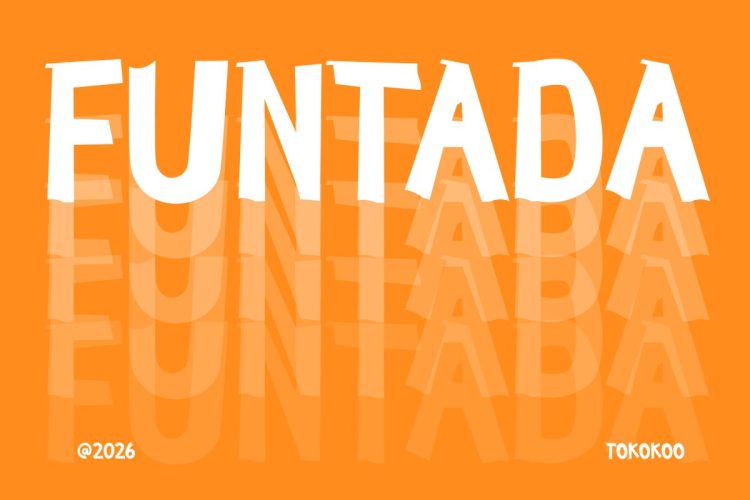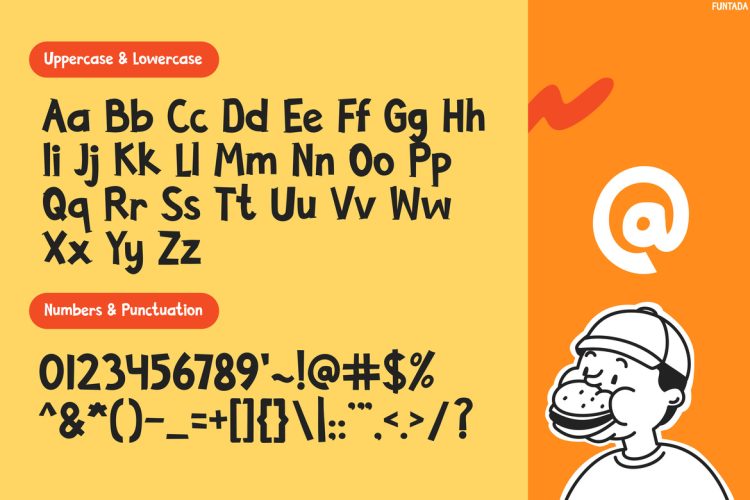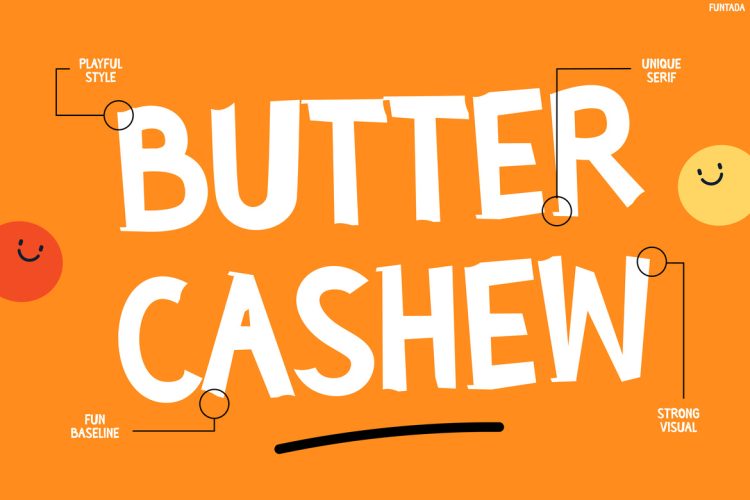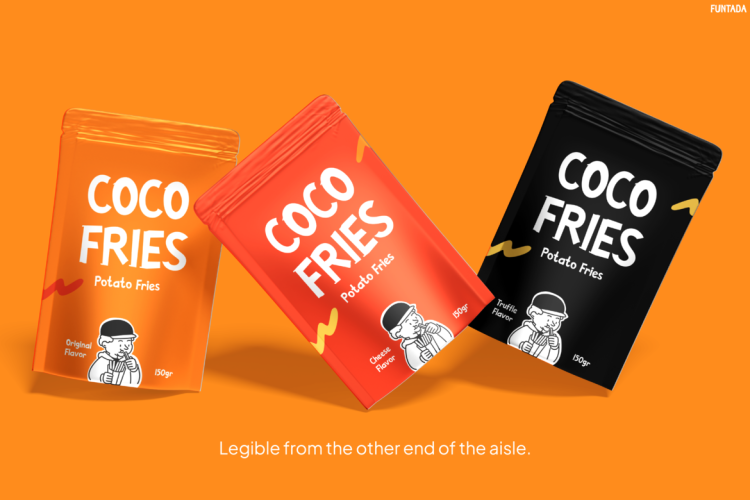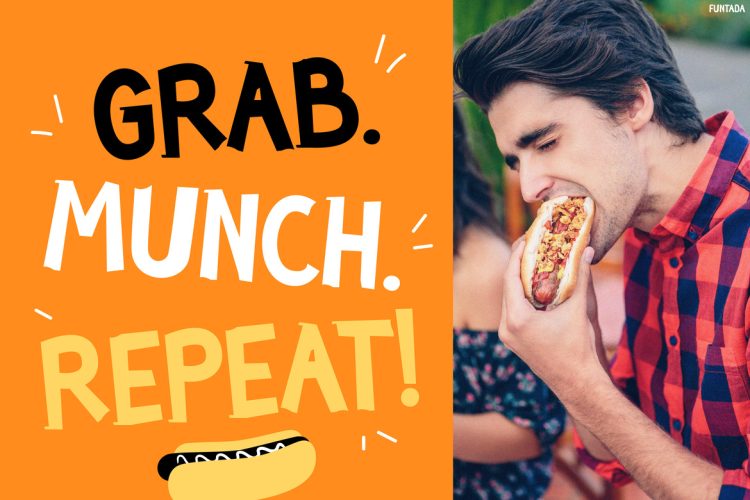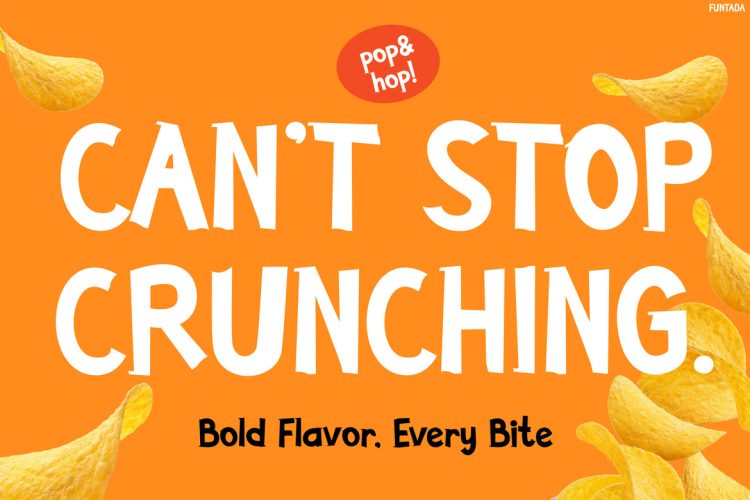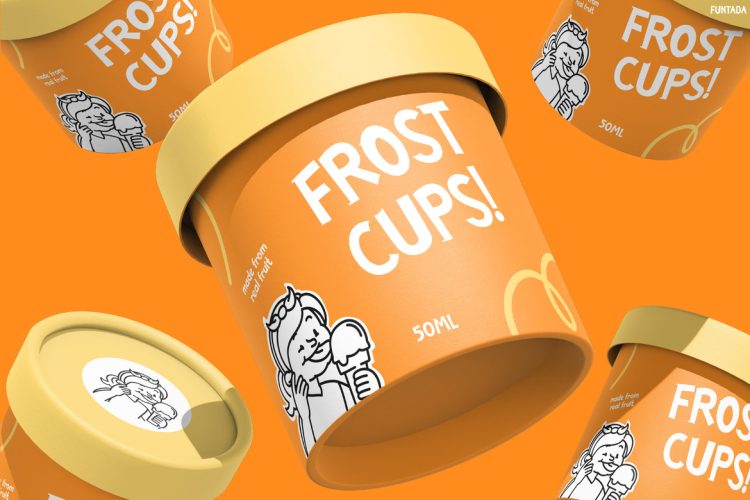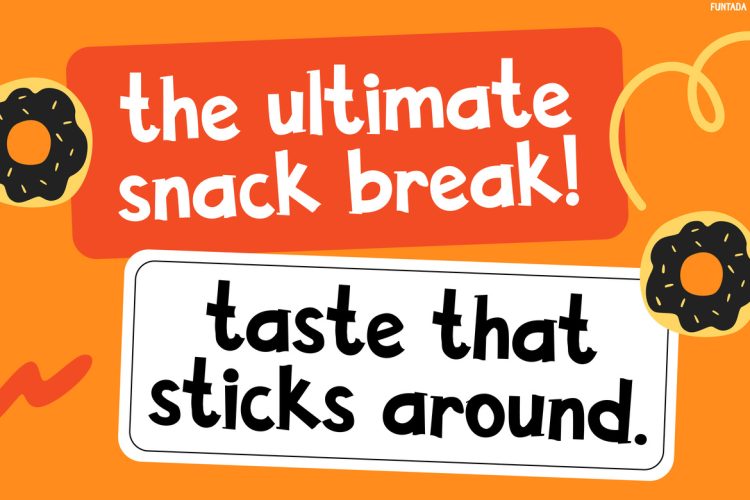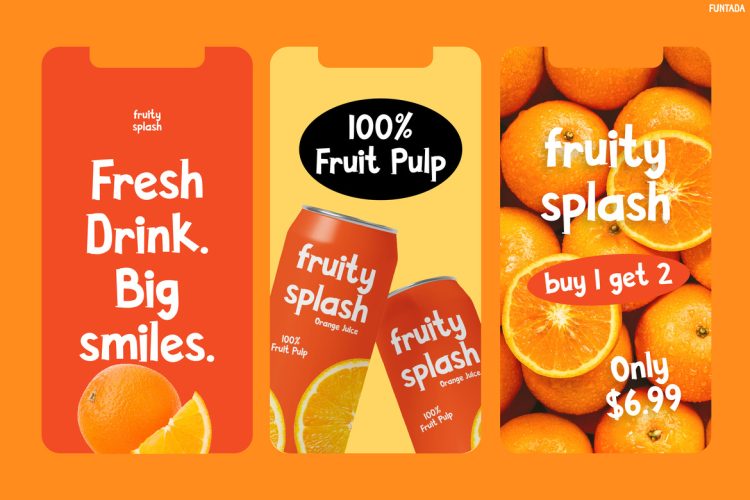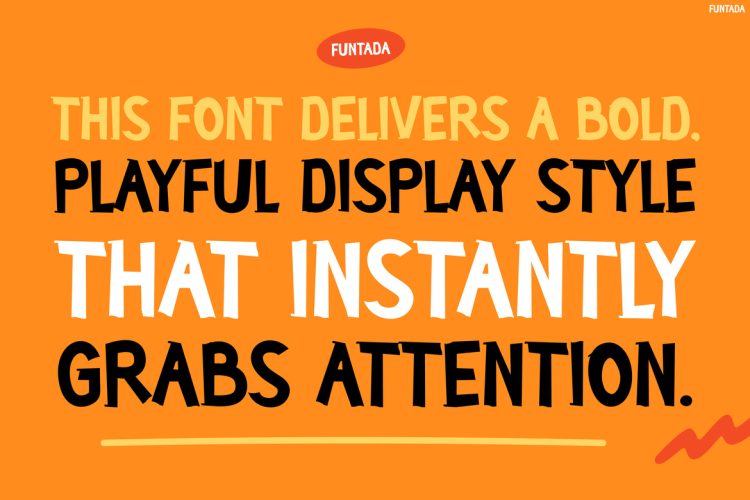
Kids Font FUNTADA โ Crunchy, Cheerful & Packed with Flavor
Kids Font FUNTADA is a bold display font made to bring excitement, fun, and irresistible charm to every design. Not only does it feature chunky handwritten letterforms, but it also combines playful curves and lively proportions that instantly catch the eye. Moreover, its energetic style creates a cheerful personality that feels warm, friendly, and full of happiness. In addition, the clean yet quirky shapes keep every headline easy to read while adding a handcrafted touch. Furthermore, FUNTADA delivers a fresh visual rhythm that makes branding feel more engaging. As a result, packaging, advertisements, and promotional materials become brighter and more memorable. Meanwhile, its joyful appearance perfectly matches products that celebrate fun, food, and family moments. Therefore, FUNTADA is the ideal font for brands that want to leave a delicious first impression.
Kids Font FUNTADA Perfect For
FUNTADA is designed for projects that need bold typography with a playful twist. Whether you’re creating snack packaging, fast-food branding, beverage labels, cafรฉ menus, kids’ products, promotional posters, social media graphics, or event campaigns, this font adds instant personality. Likewise, its friendly handwritten style makes every message feel more inviting. Furthermore, the bold shapes help headlines stand out from a distance. Consequently, your branding becomes more recognizable and easier to remember. At the same time, FUNTADA works beautifully across both print and digital media.
Who Can Use It?
- Snack & Food Brands
- Fast Food & Cafรฉ Owners
- Beverage Companies
- Kids Product Businesses
- Packaging Designers
- Restaurant Marketing Teams
- Social Media Creators
- Graphic Designers
- Creative Agencies
Make Every Bite More Fun